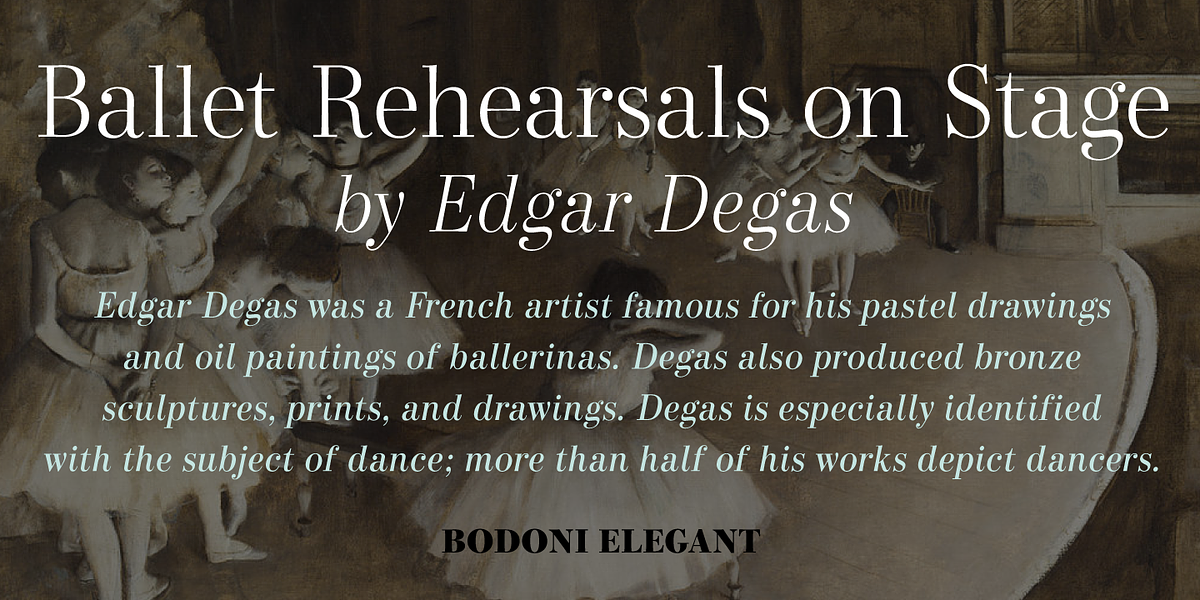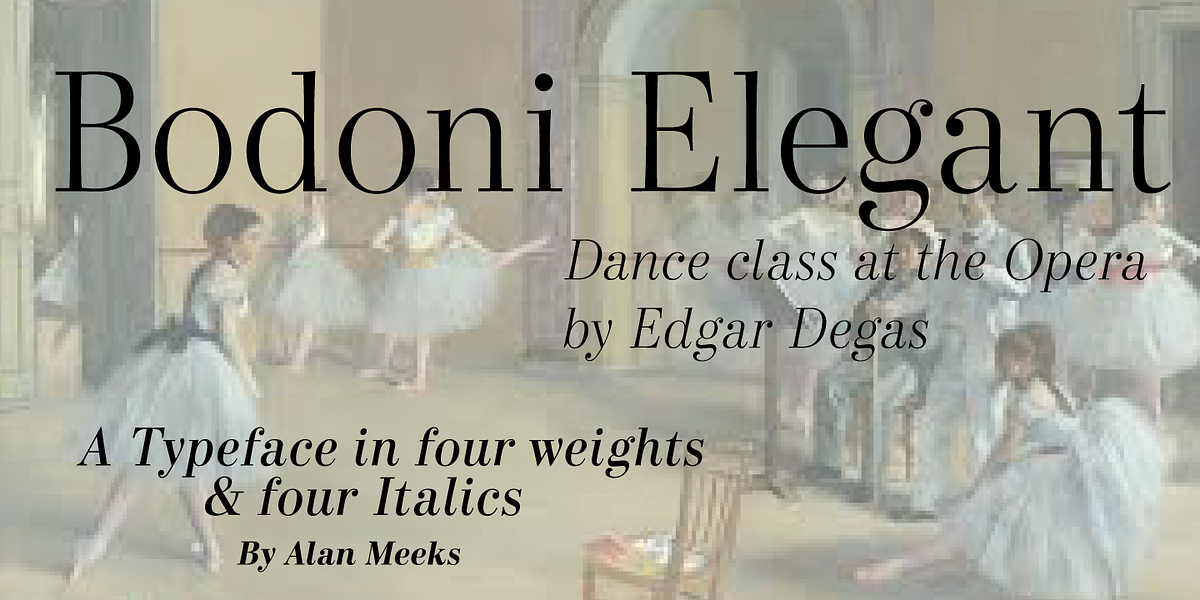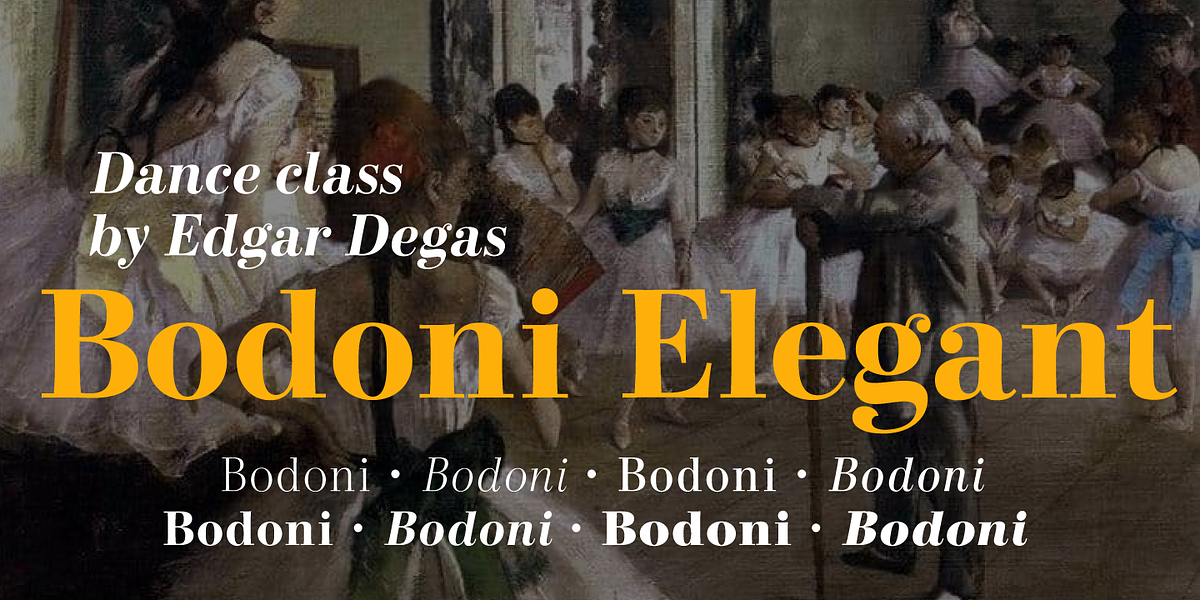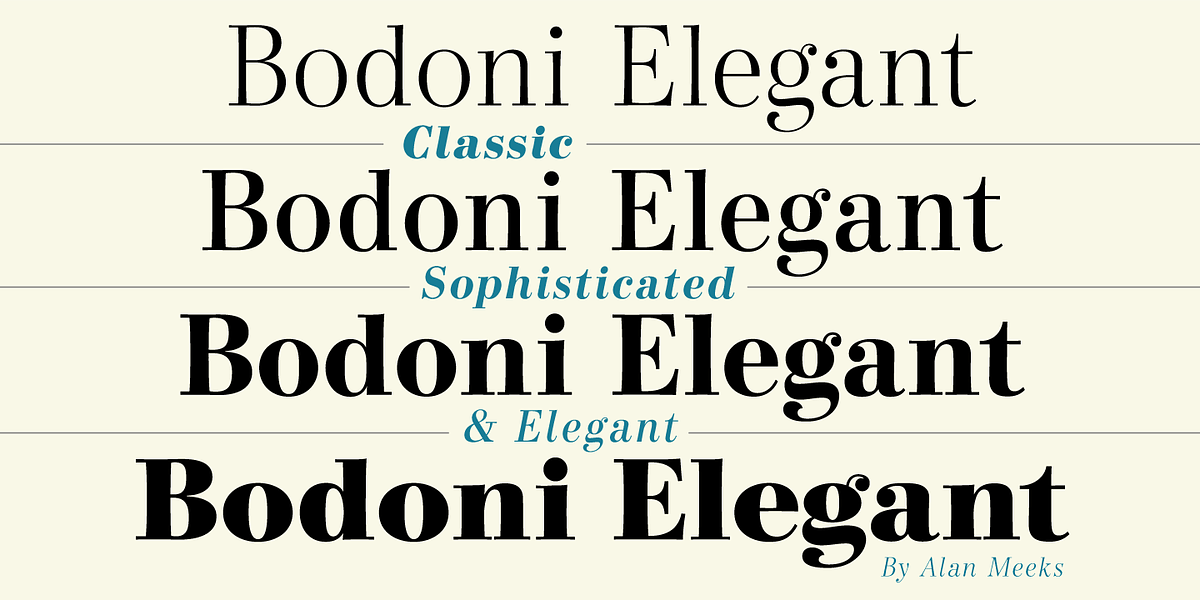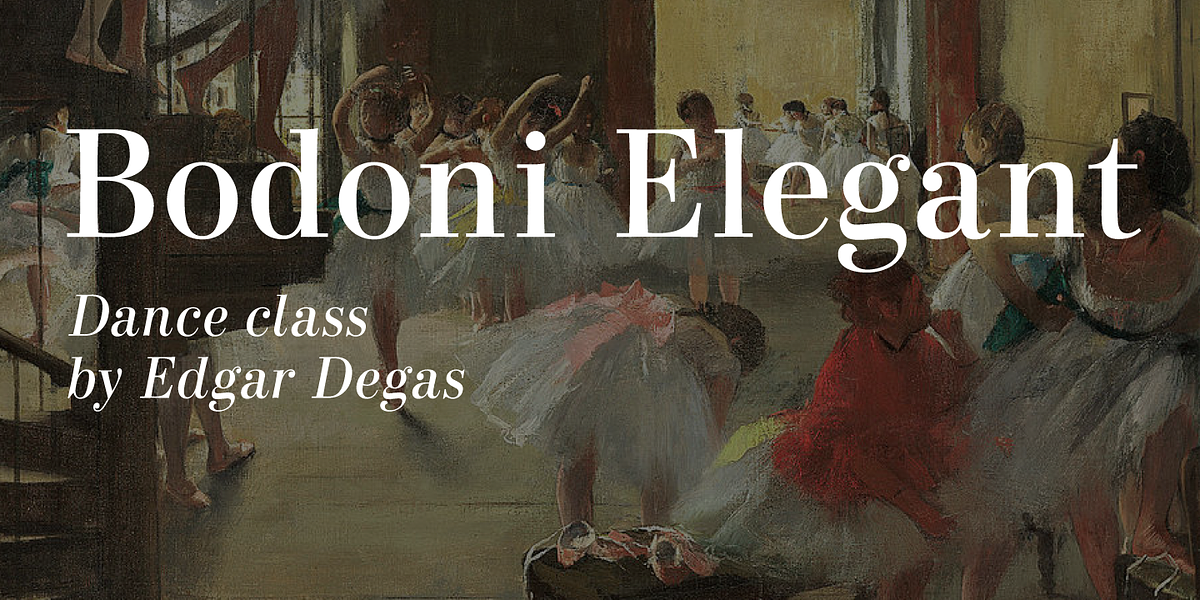
Bodoni Elegant
This didone serif font is designed to be elegant and refined. The designer incorporated a slight curve on the uprights, inspired by Optima, to add a touch of modernity to the classic didone style. The font is suitable for headlines, branding, and editorial design.